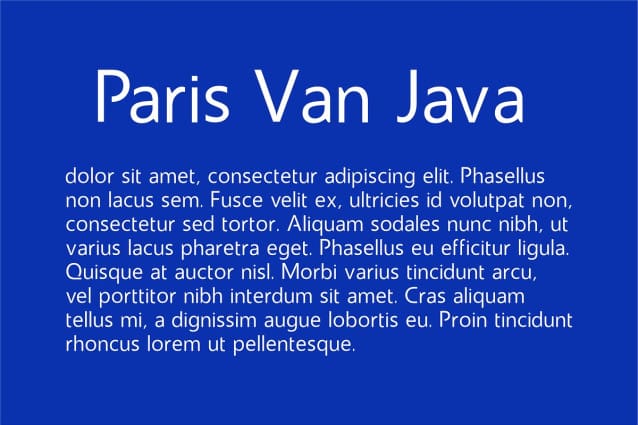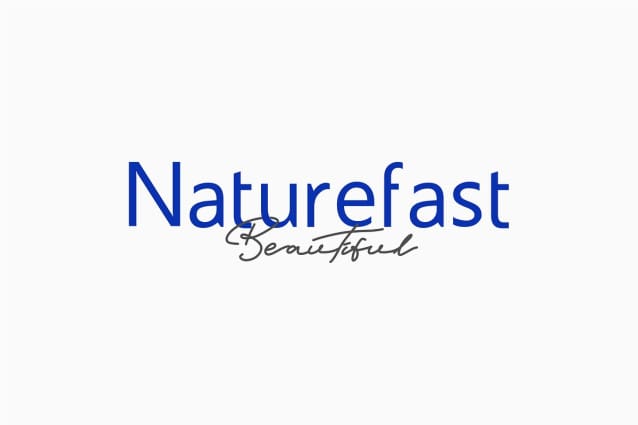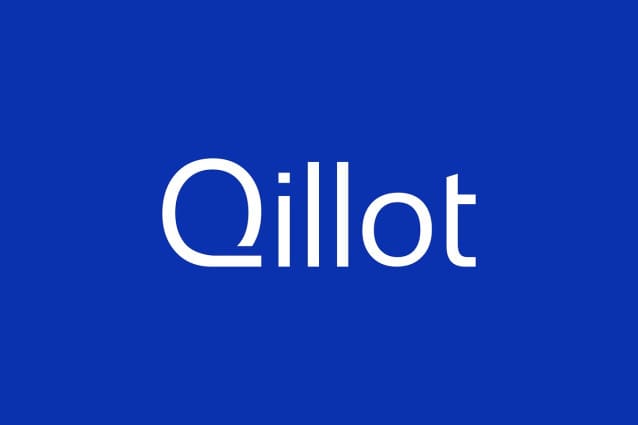
Qillot Font
Qillot Font – Great Typeface with a simple Style, Fashion & Elegant!  A bold statement with our latest sans-serif font. With its clean lines and modern appeal, this font is sure to turn heads and leave a lasting impression. Perfect for headlines, logos, and any design that demands attention. It is both functional and stylish, making it a versatile choice for a wide range of design projects.